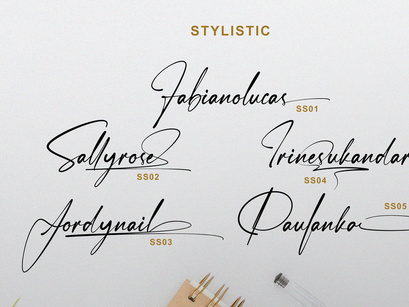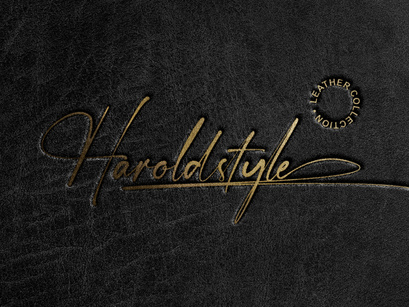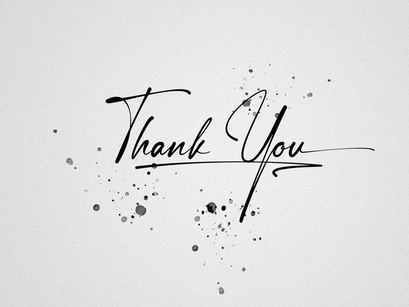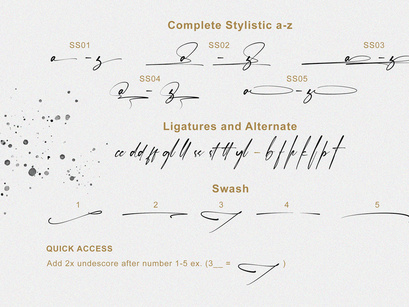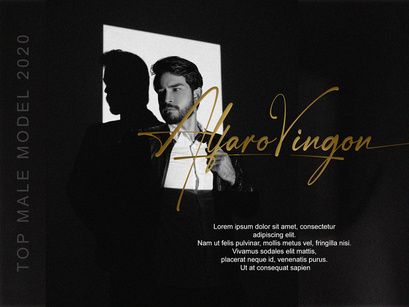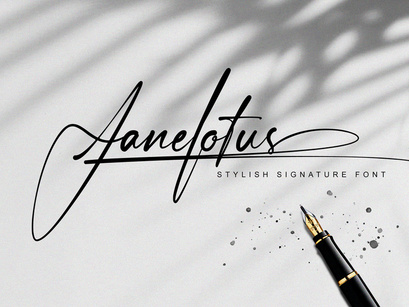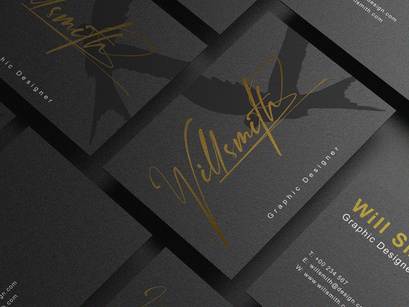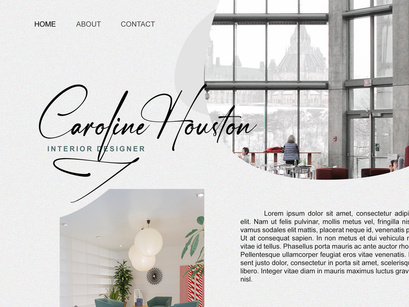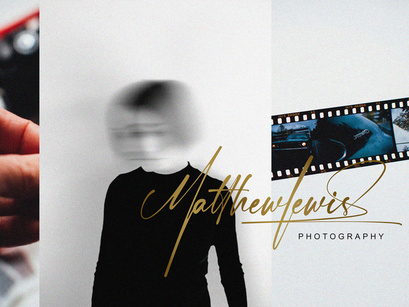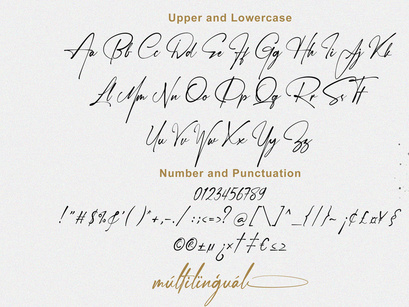
Janelotus is a perfect signature font, with a natural & stylish flow. Janelotus Font is perfect for many different project such as logos & branding, invitation, stationery, wedding designs, social media posts, advertisements, product packaging, product designs, label, photography, watermark, special events or anything.
Ligatures
Swash
Stylistic
Uppercase and Lowercase letters
Numbering and Punctuations
Also Multilingual Support